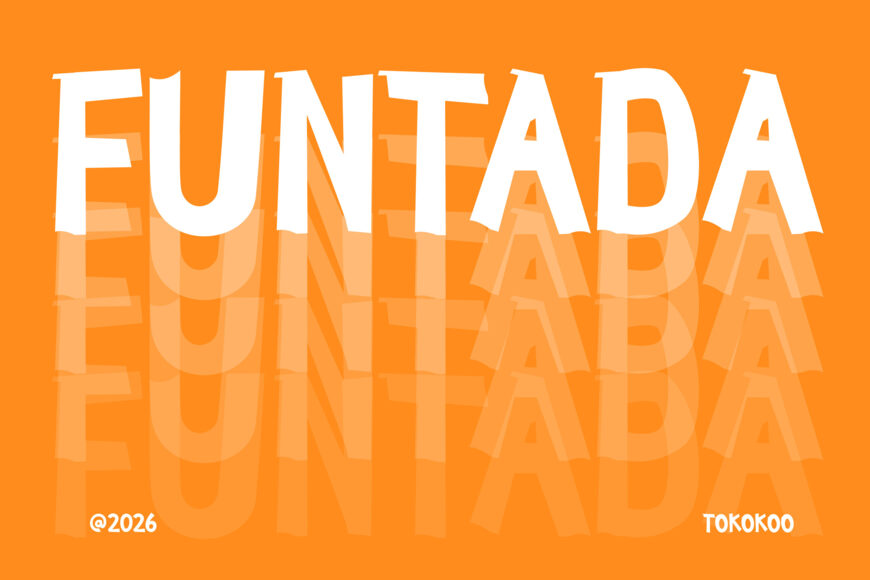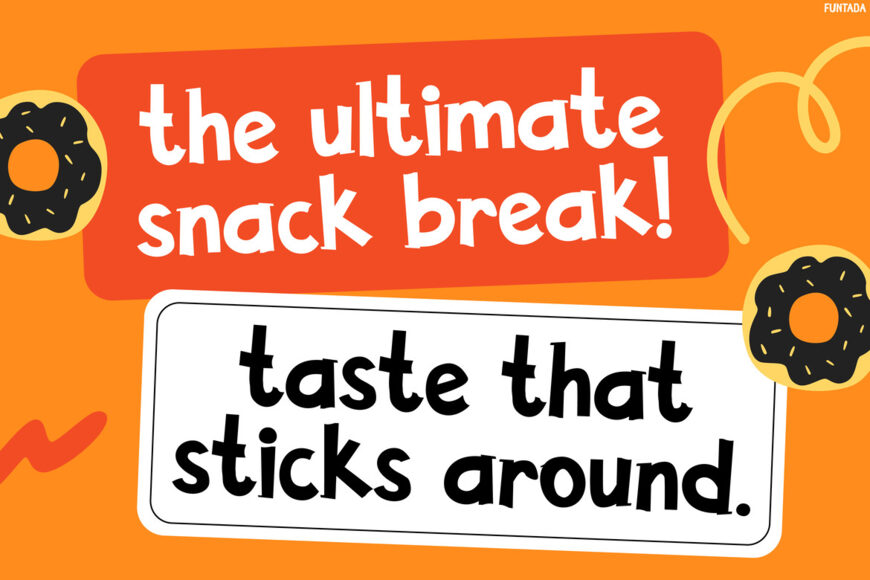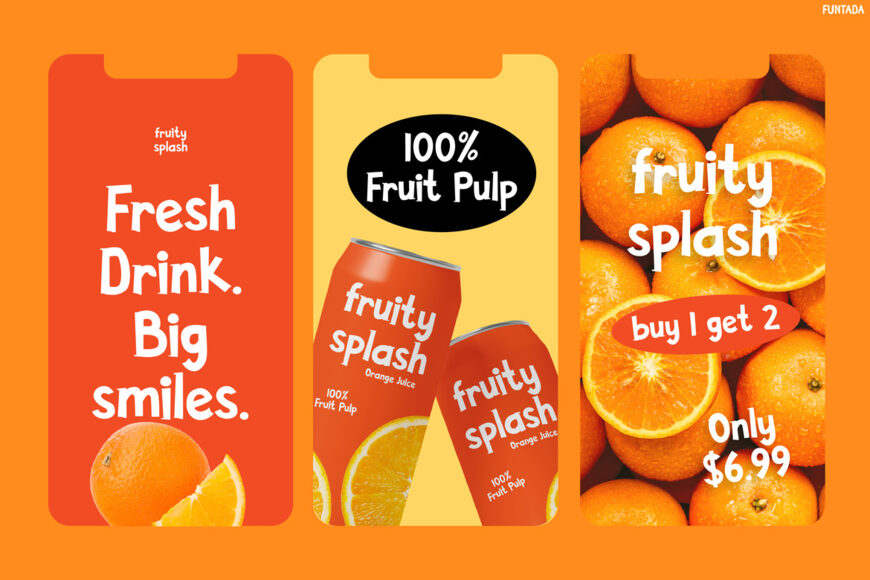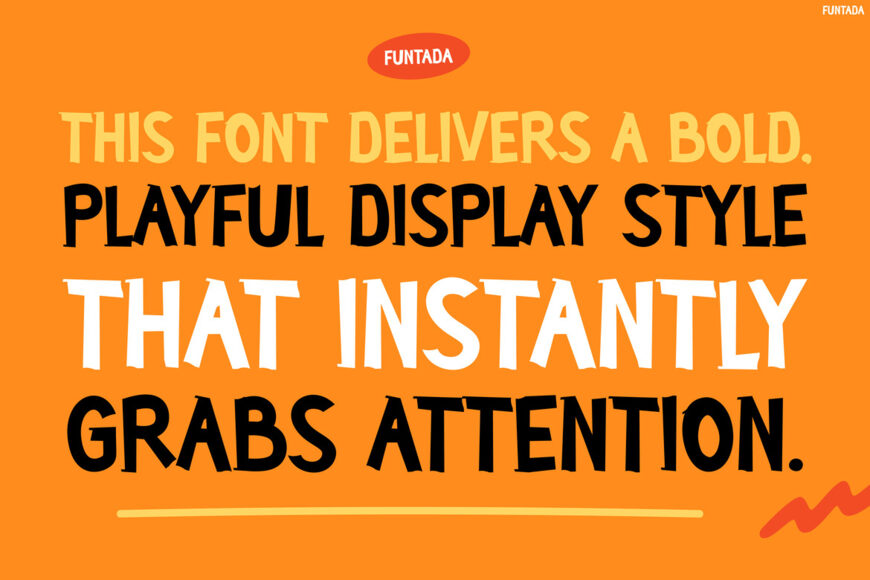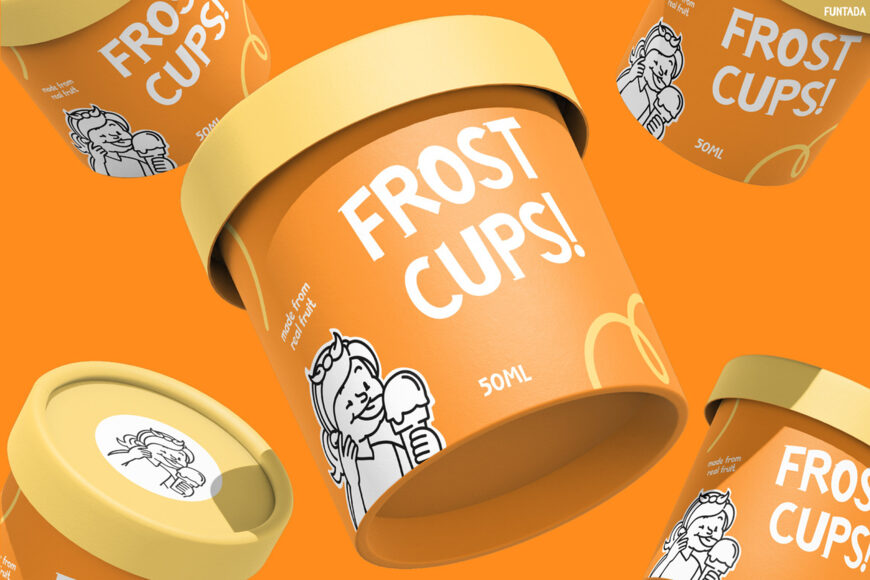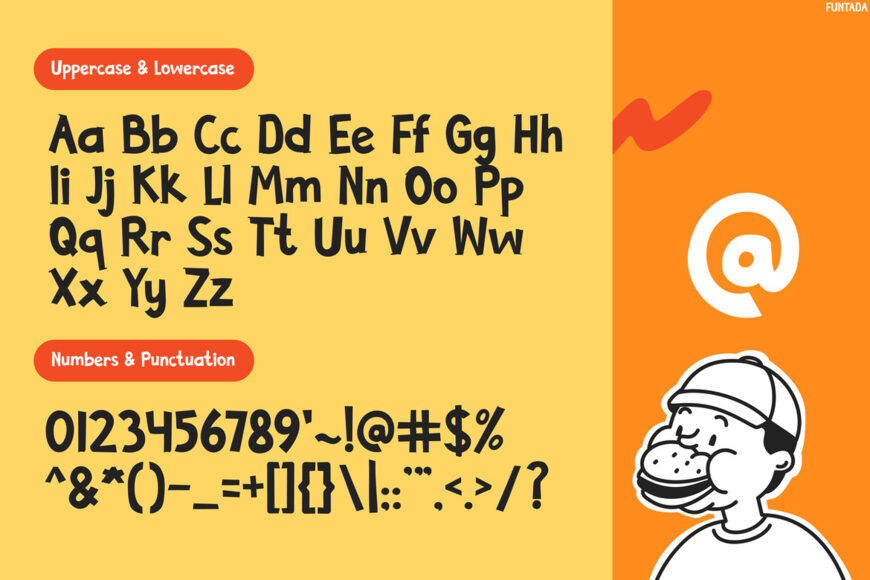
Funtada is a vibrant display font that adds excitement and charm to designs. Its chunky, handwritten style and playful curves create a cheerful, friendly feel.
The font’s clean yet quirky shapes make headlines easy to read, while its energetic style brings a fresh, engaging rhythm to branding. Perfect for products that evoke fun, food, and family, Funtada leaves a lasting impression, making it ideal for brands seeking a warm and memorable visual identity.